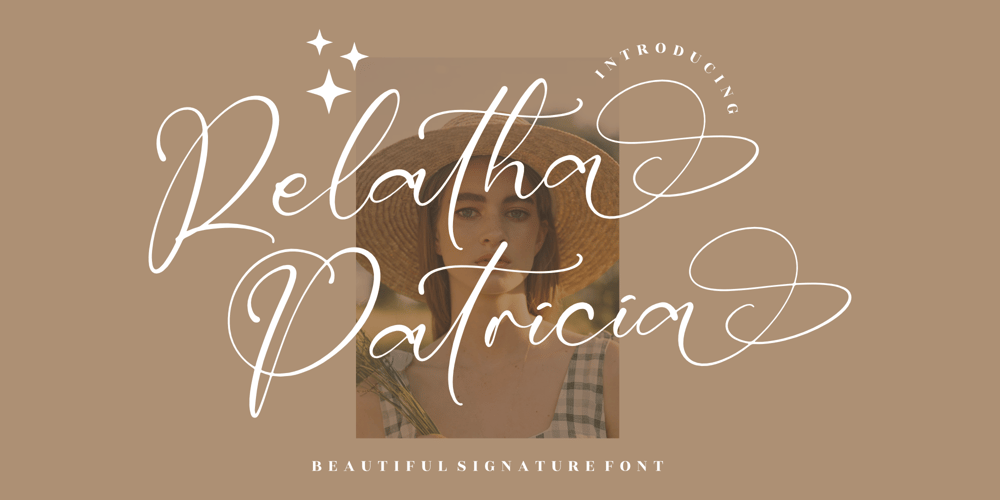
Relatha Patricia Font Family was designed by Heru Utama Putra and published by Letterena Studios. Relatha Patricia contains 2 styles and family package options. Relatha Patricia is a stunning handwritten font. Its flexibility and neat style will brighten up each of your designs. Have fun with this cool font and explore its endless variations.